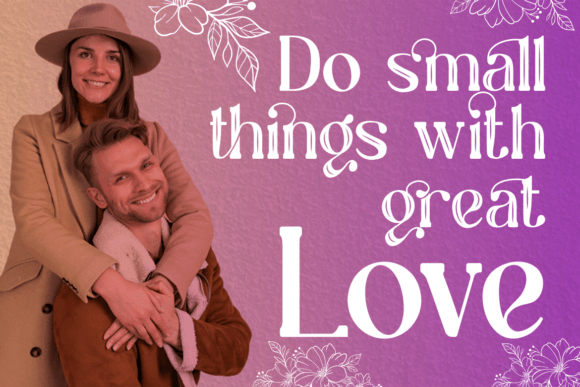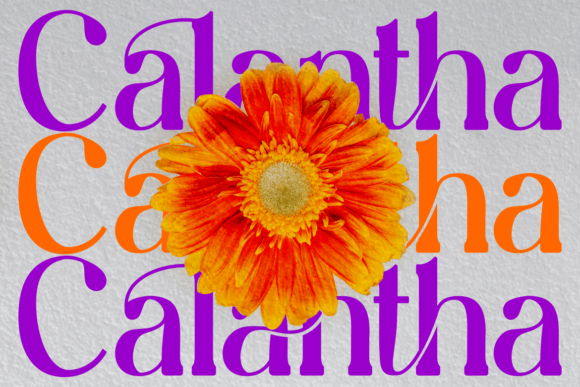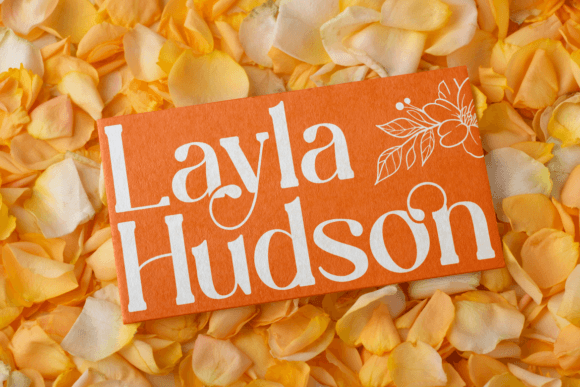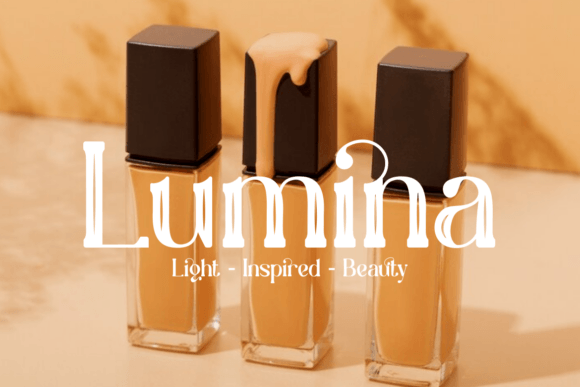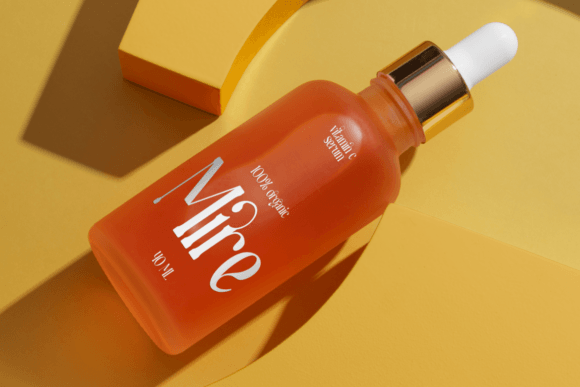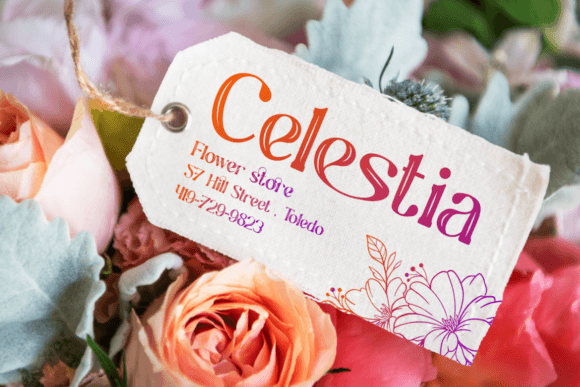
Introduction to Rhenia Font
As a designer, there’s nothing quite like the thrill of stumbling upon a new font that perfectly captures the essence of your creative vision. It’s a moment that can elevate your entire project and leave a lasting impression on your audience. For me, that moment came when I discovered the Rhenia Font – a stunning display font that seamlessly blends classic sophistication with modern style.
With its refined, tall letterforms and unique curved strokes, the Rhenia Font is a true design treasure. Its delicate yet bold cuts and subtle detailing add an air of luxury, making it the perfect choice for upscale, creative, and professional designs. Whether you’re working on a seasonal project or a vintage-inspired campaign, the Rhenia Font’s warm autumnal vibe is sure to shine through.
Key Features of Rhenia Font
- High-quality font with a transparent background, ideal for creative projects that require a clean and minimalist aesthetic.
- Designed to be highly legible, with a clear and readable font face that works well at a variety of sizes and resolutions.
- Perfect for use in digital design projects, including logos, branding, and graphics, where a high-quality font is essential.
- Includes a range of weights and styles, allowing designers to add depth and nuance to their creative projects.
Honest Review: Rhenia Font
I recently had the chance to work with the Rhenia Font, and I must say it’s been a game-changer for my creative project. This font is perfect for designers looking for a high-quality, unique font to add some personality to their designs.
- ✨ One of the standout features of Rhenia Font is its versatility. It can be used for a variety of design projects, from logos to web design and even print materials.
- ✨ The font is also highly customizable, allowing designers to adjust the size, color, and even the transparency of the background to fit their needs.
As for the limitations, I would say that the Rhenia Font is not ideal for projects that require a lot of bold typography. The font is quite elegant and refined, making it better suited for designs that require a more subtle approach.
The Rhenia Font is a versatile design resource that can be used for a variety of creative projects, including business cards, brochures, and social media graphics. Its high-quality design and transparent background make it an ideal choice for designers looking for a unique and professional look.